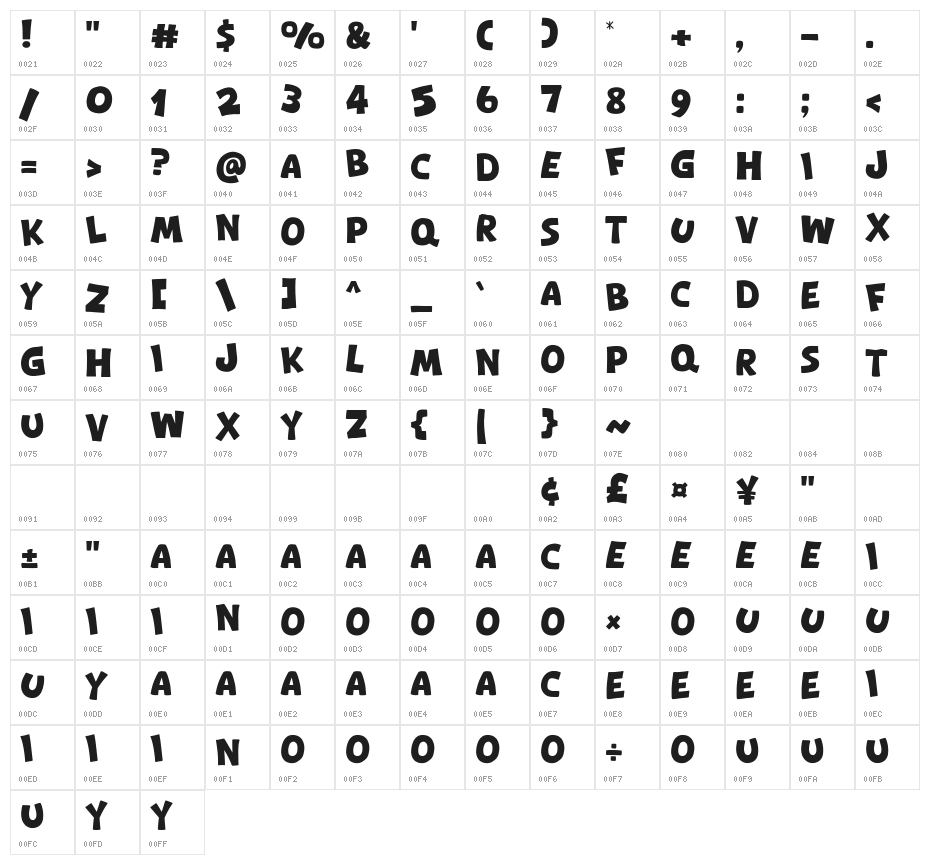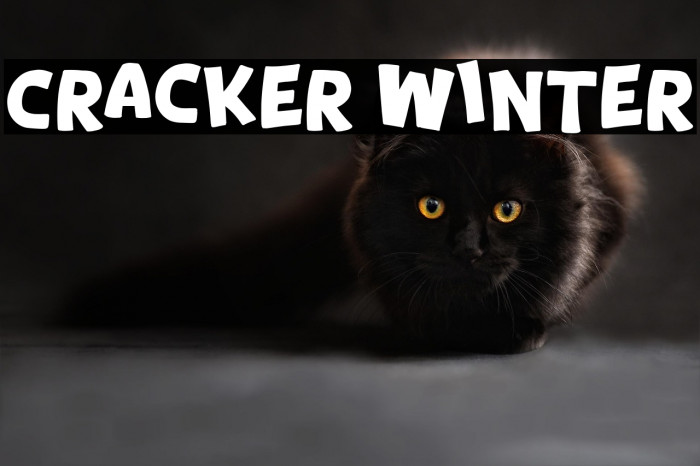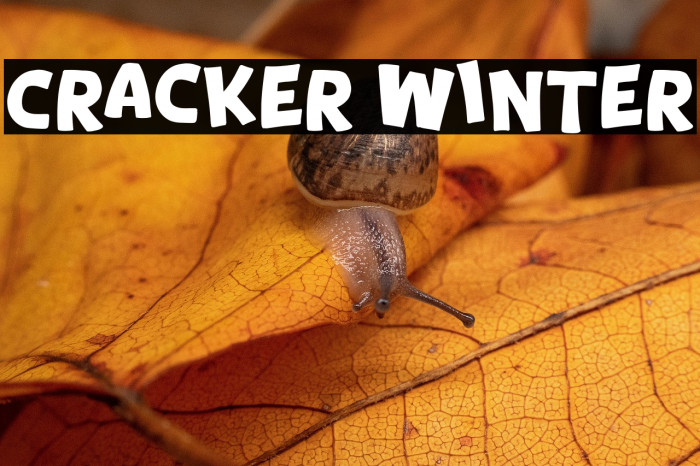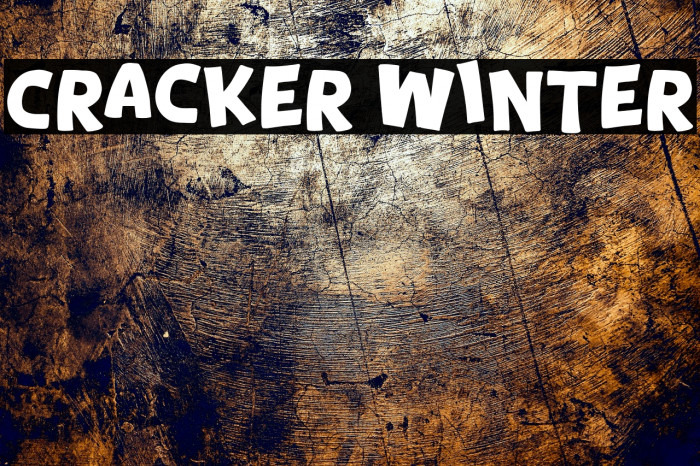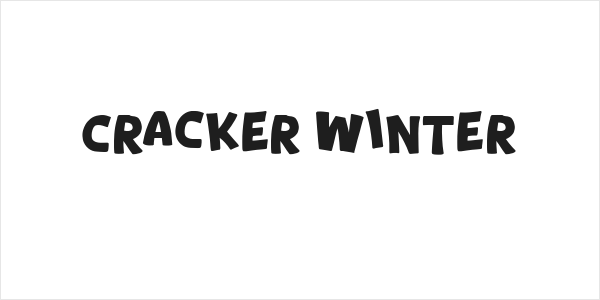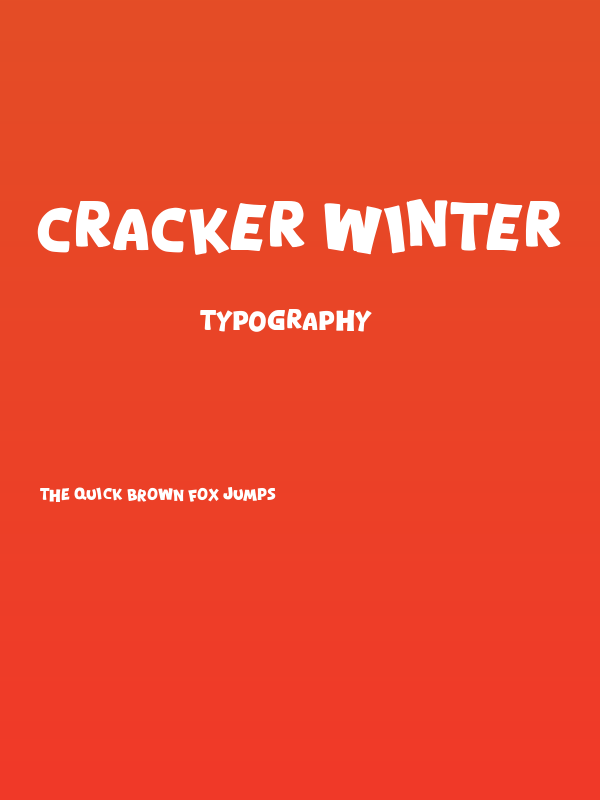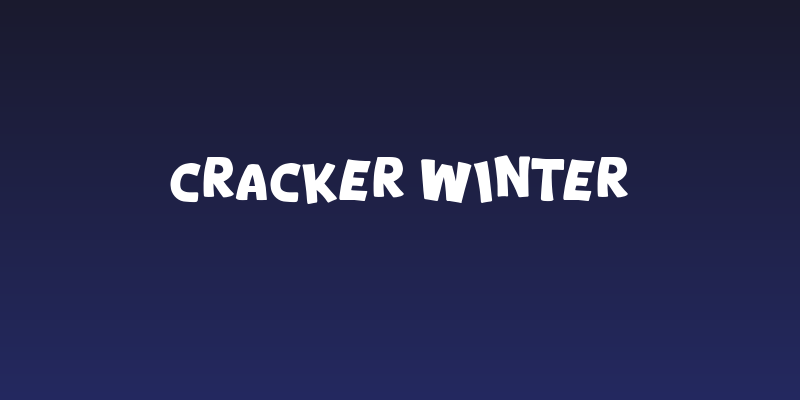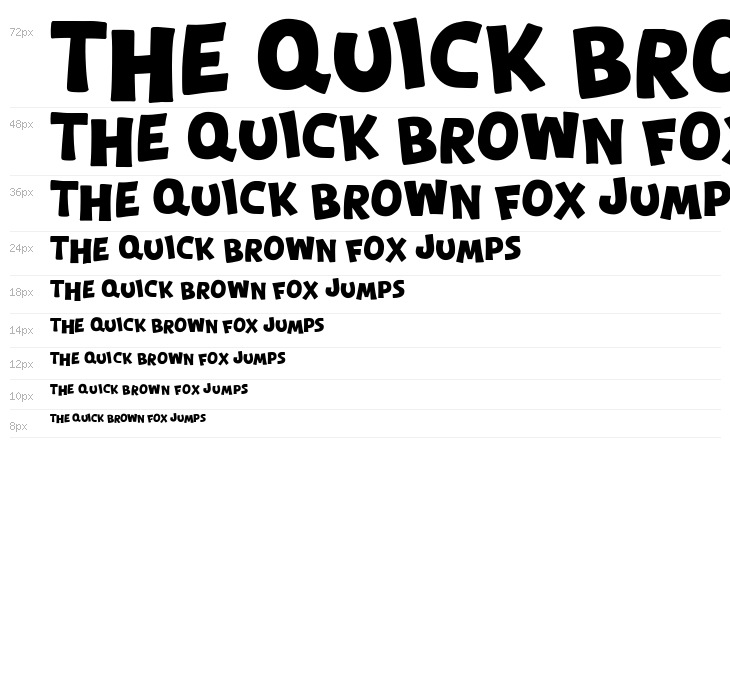
Cracker Winter Font
Cracker Winter Description
This playful and bold font features a whimsical, cartoon-like style with exaggerated curves and uneven lines, giving it a lively and dynamic appearance. The characters are thick and substantial, making them highly visible and impactful. The uppercase and lowercase letters maintain a consistent style, with a slight tilt and irregularity that adds to the font's charm. Numbers and special characters are equally bold and playful, ensuring a cohesive look across all text elements. The font's unique personality makes it ideal for projects that require a fun and engaging aesthetic.
| Overall Style | Playful, Cartoon-like, Whimsical |
| Proposed Projects | Ideal for children's books, comic strips, playful branding, party invitations, and any project needing a fun, engaging aesthetic. |